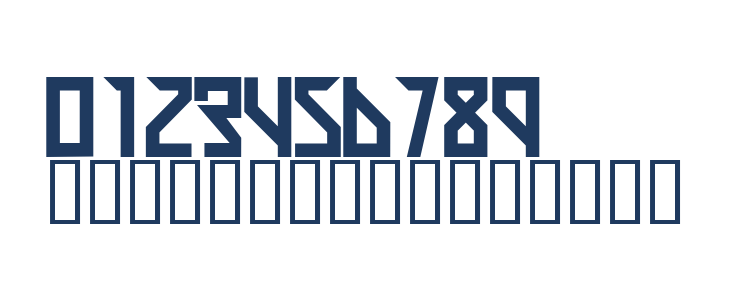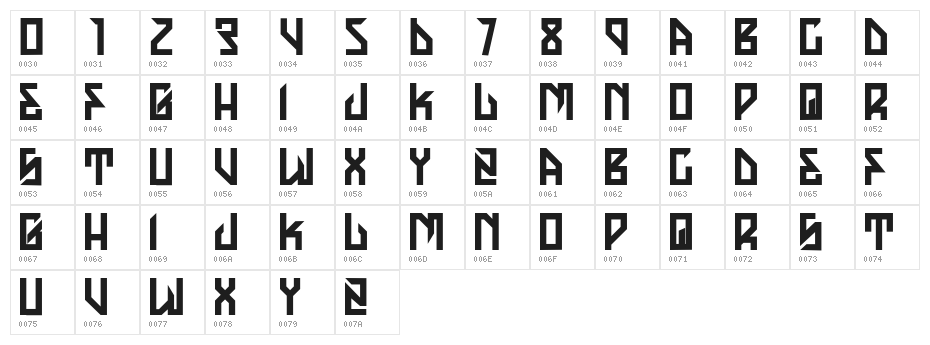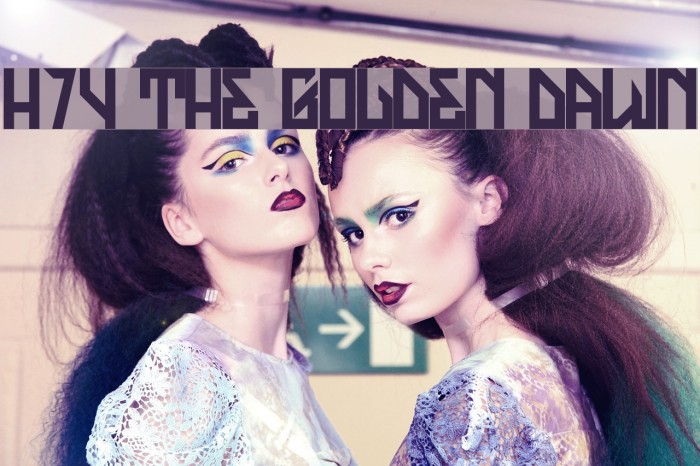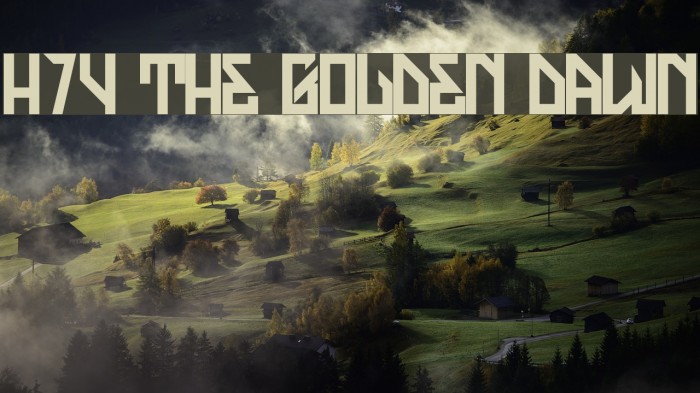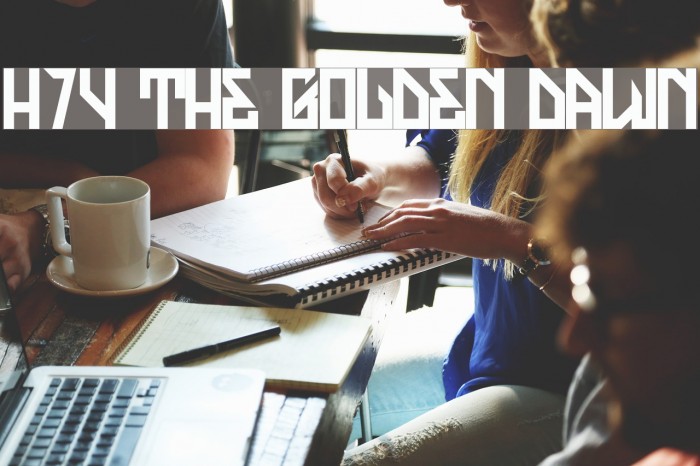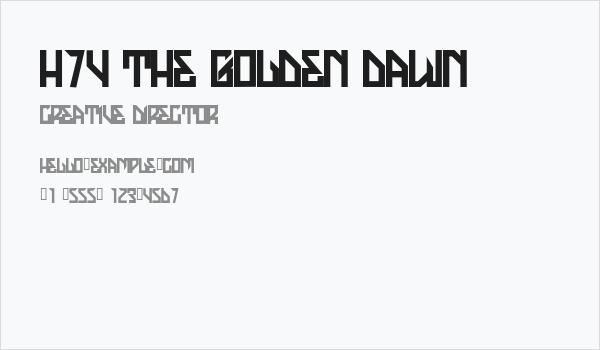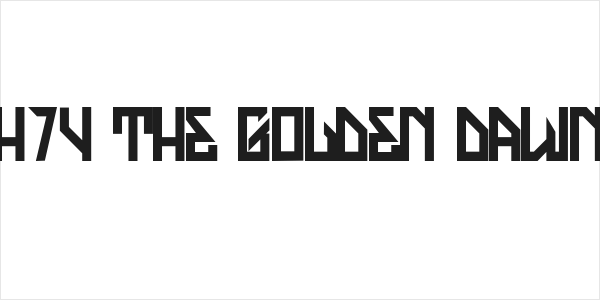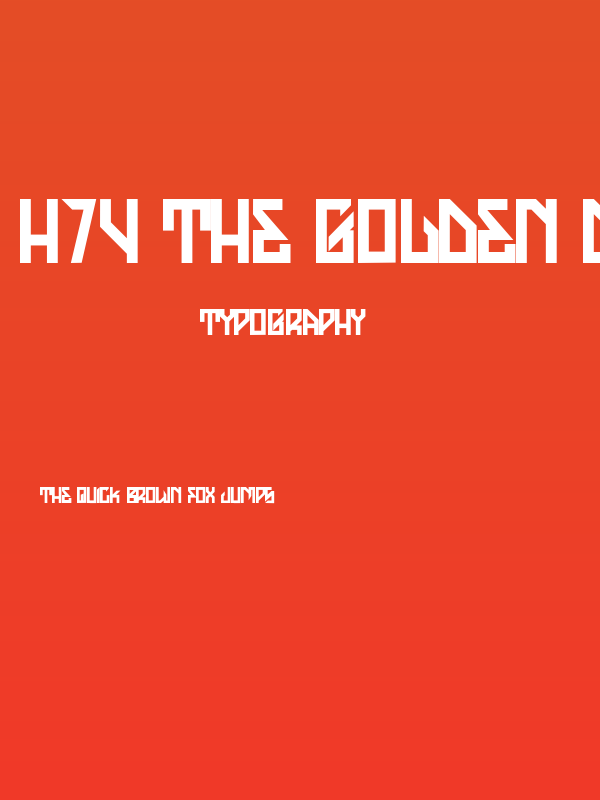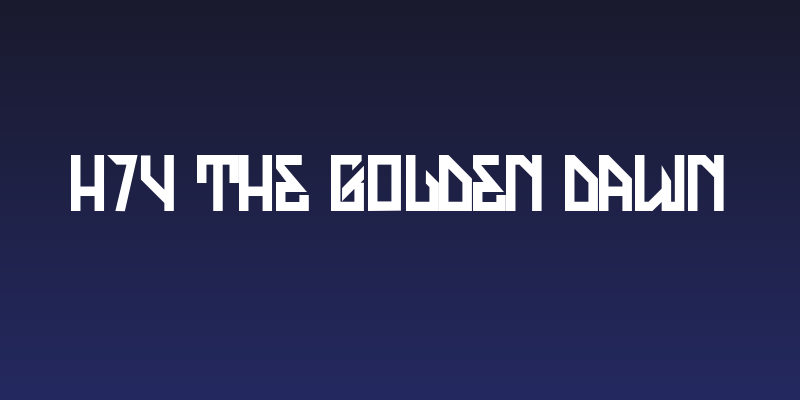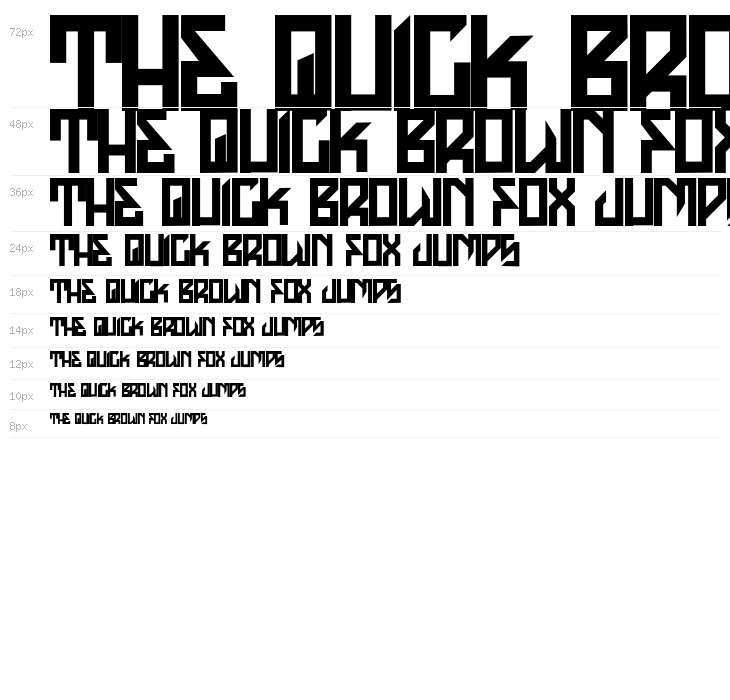
H74 The Golden Dawn Font
H74 The Golden Dawn Description
This font features a bold, geometric design with sharp angles and a futuristic aesthetic. Each character is crafted with precision, showcasing a unique blend of modernity and edginess. The uppercase and lowercase letters maintain a consistent style, with angular cuts and a blocky appearance that gives the font a strong, impactful presence. The numerals and special characters follow the same design principles, ensuring uniformity across all elements. This font is ideal for projects that require a bold statement, such as branding, posters, or digital media.
| Proposed Projects | Ideal for branding, posters, digital media, and any project needing a bold statement. |